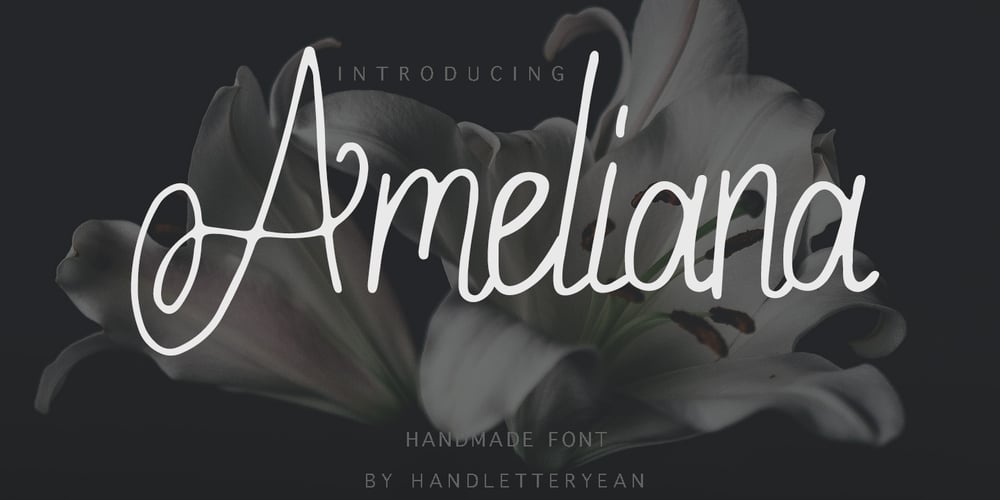
Ameliana Font Family was designed by Yean Aguste and published by HandletterYean. Ameliana contains 4 styles and family package options. Ameliana is an amazing handwritten font, it created by the inspiration of women’s smile. the simplicity of this font tries to resemble that smile which is simple yet beautiful and amazing. Ameliana has a great readability and is perfect for adding a natural look to your designs. This font comes in regular, bold, italic, bold italic style and can be use for multi language.